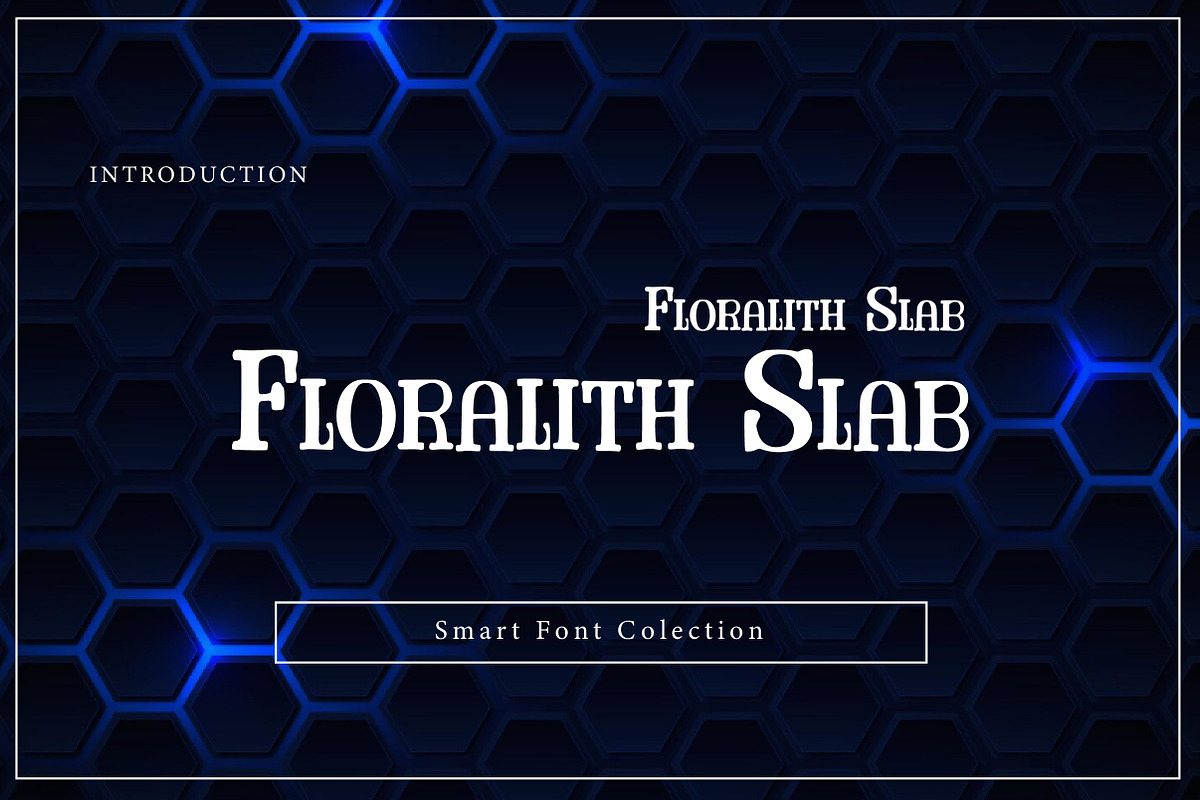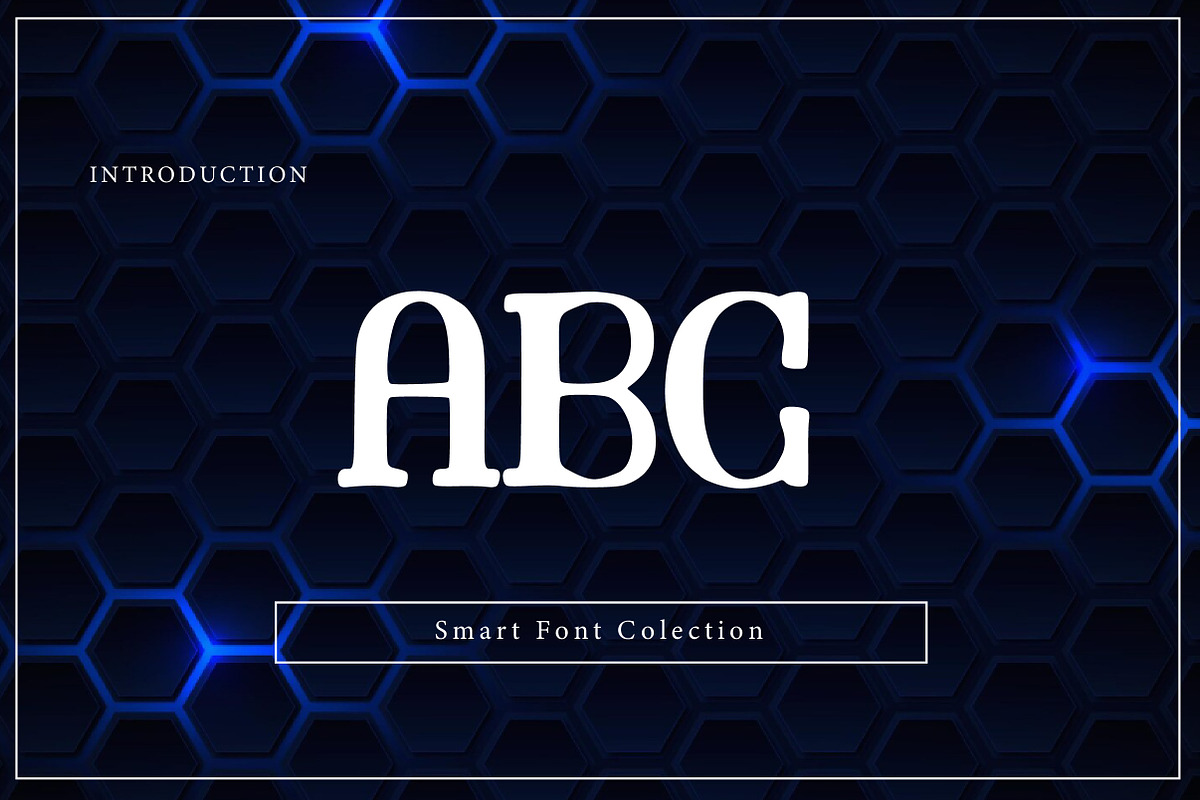
Floralith Slab
Floralith Slab is a bold and elegant slab serif display font that blends strong structure with a refined, classic personality. Featuring thick strokes, confident slab serifs, and a clean vintage-inspired look, this font is perfect for logos, branding, packaging, posters, headlines, signage, editorial layouts, and modern rustic designs. Floralith Slab delivers both impact and sophistication, making it ideal for projects that need a timeless, stylish, and premium visual identity.